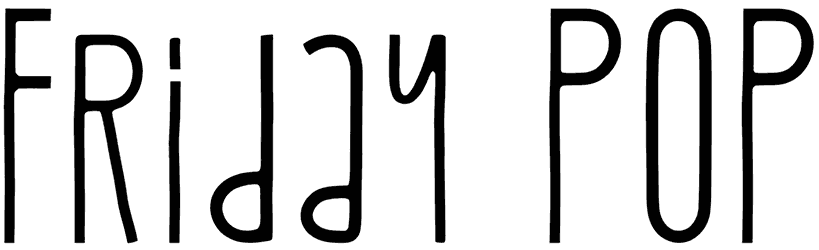
Friday Pop Font
Friday Pop is for designers who like new styles and want to create an intimate feeling in their writing. The thin and elongated style in the letters of this handwritten font makes it look like a pleasant and childlike line drawing.
So, it’s an ideal choice for animation posters, simple children’s games, and conveying concepts. Tall letters in this minimal font, which are a combination of small and capital letters, attract attention and can distinguish your designs from thousands of existing projects.